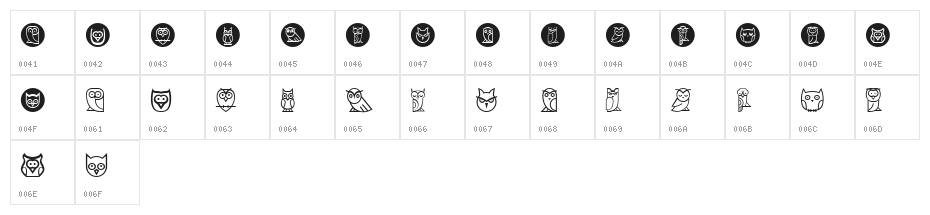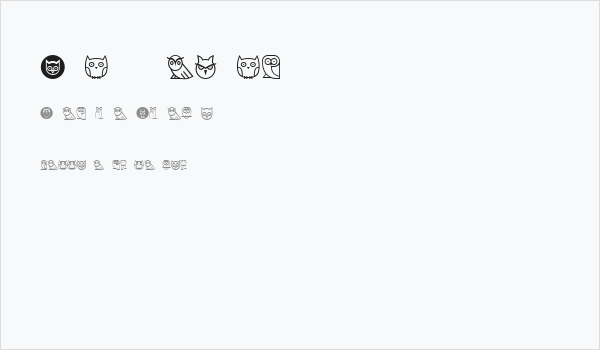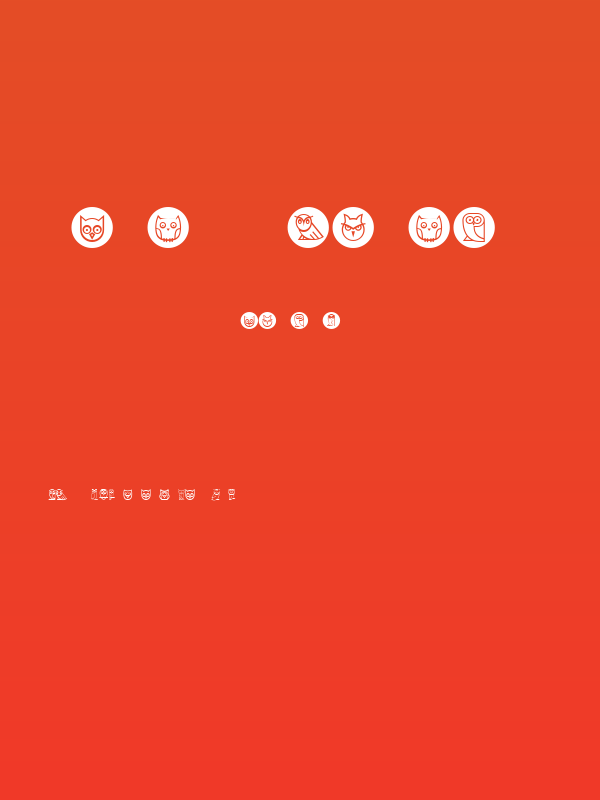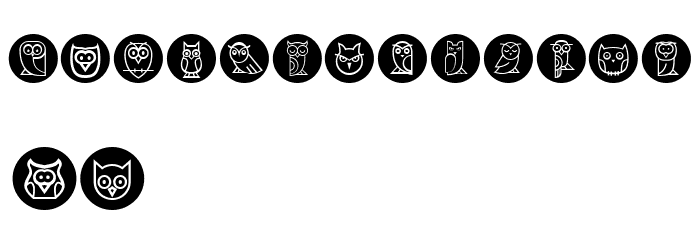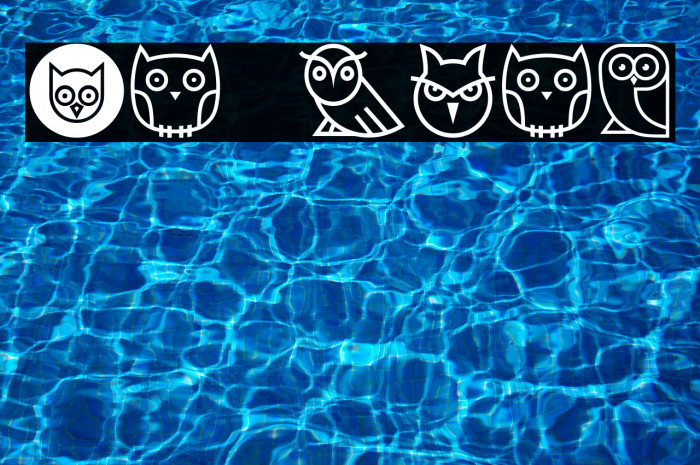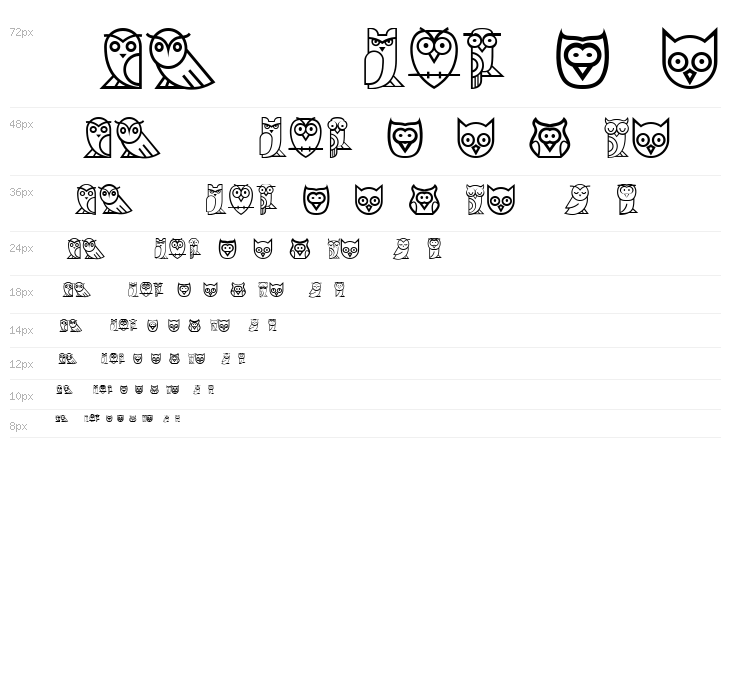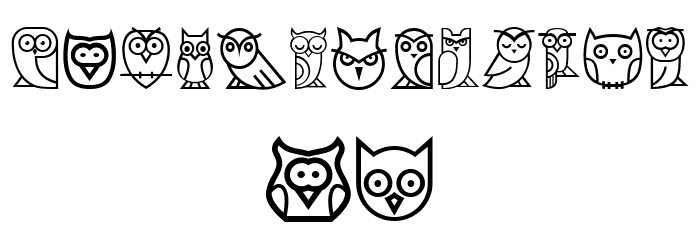
Owls Regular Font
Owls Regular Description
A decorative dingbat font featuring a variety of stylized owl illustrations in both outlined and filled circle formats, with each glyph presenting a unique owl design using clean, geometric lines and minimalistic details.
| Overall Style | Decorative, Playful, Minimalist |
| Use Case | Icons, Logos, Decorative elements, Themed graphics |
| Proposed Projects | Children’s books, educational materials, branding for wildlife organizations, themed party invitations, stickers, and digital scrapbooking. |